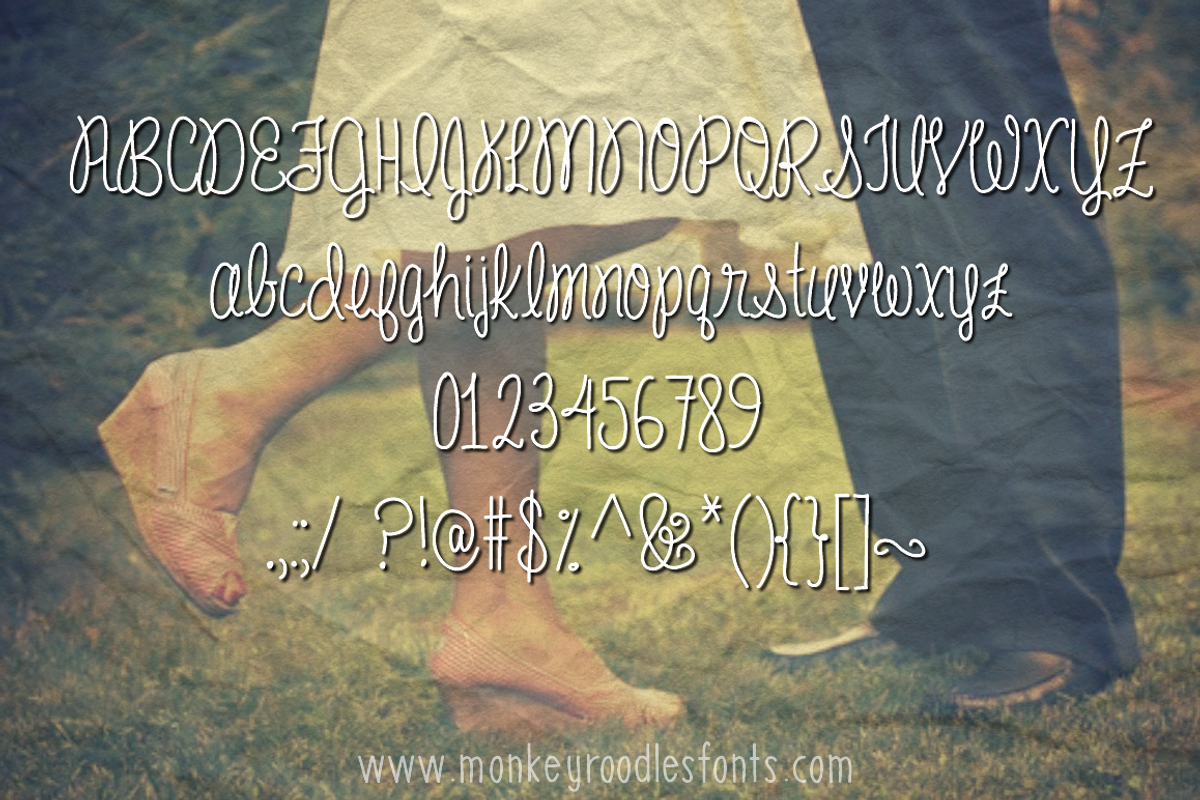
Living on love- handwritten font
Living on love- handwritten font by Sabrina Schleiger Design is a font selected for branding, posters, packaging, typography.
Why Living on love- handwritten font is worth a look
Living on love- handwritten font by Sabrina Schleiger Design fits naturally into Branding, posters, packaging, typography.